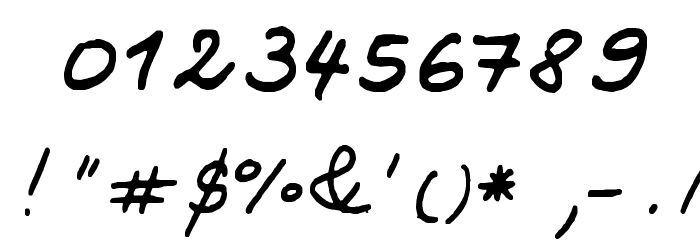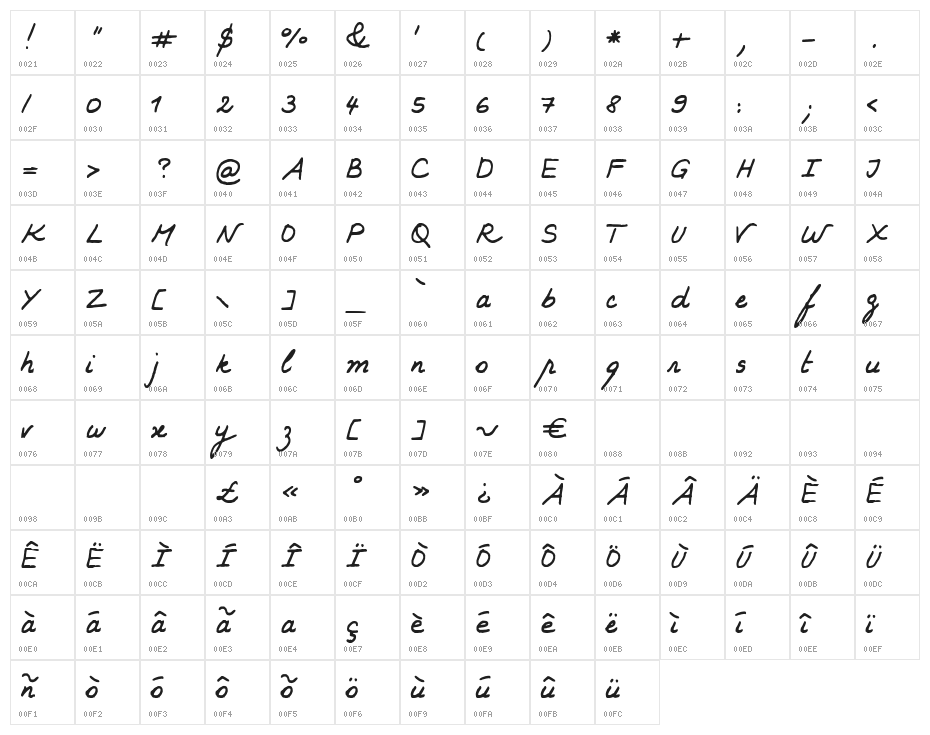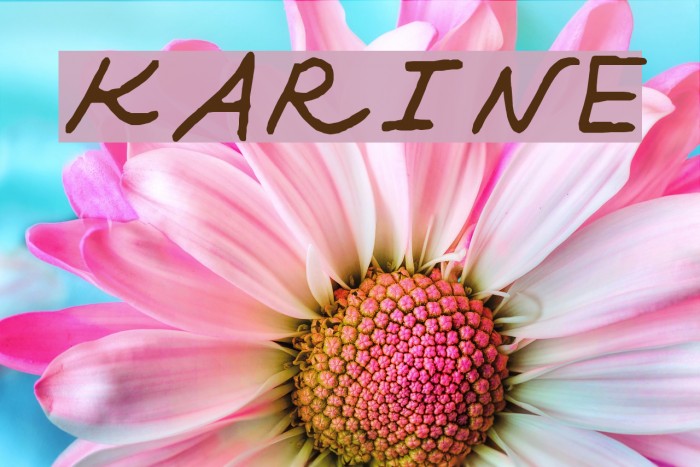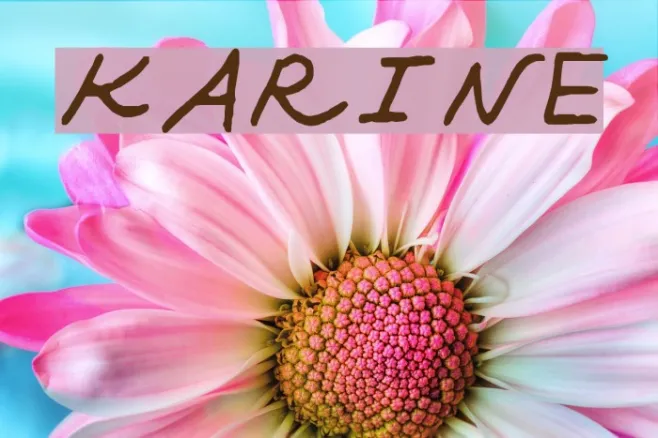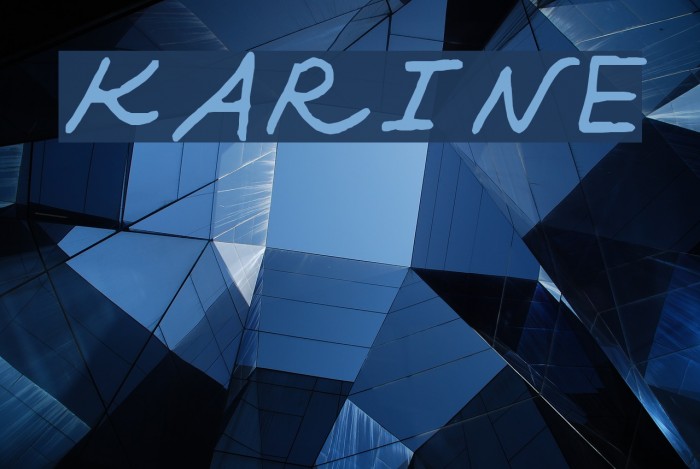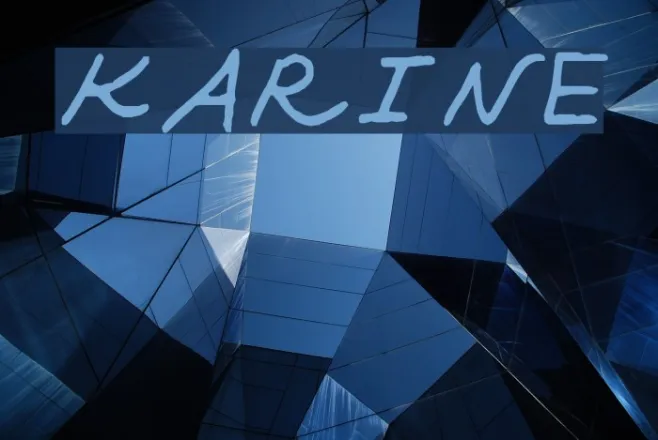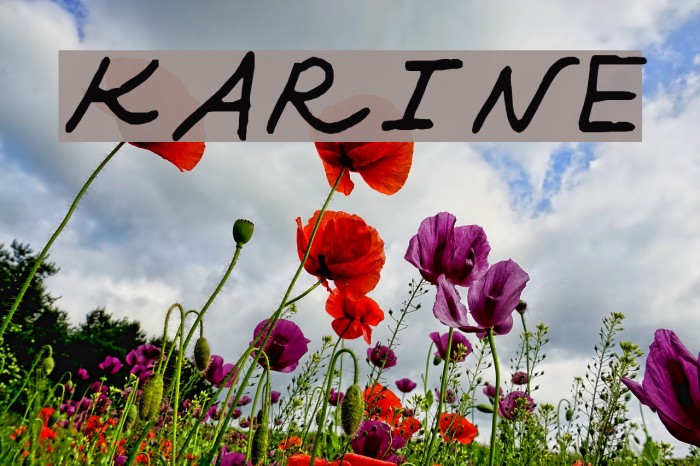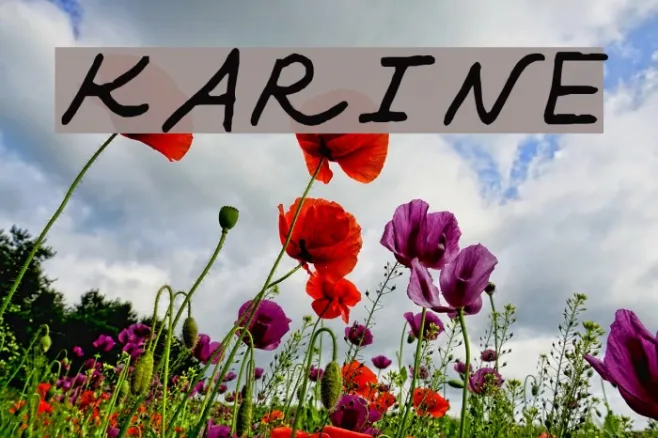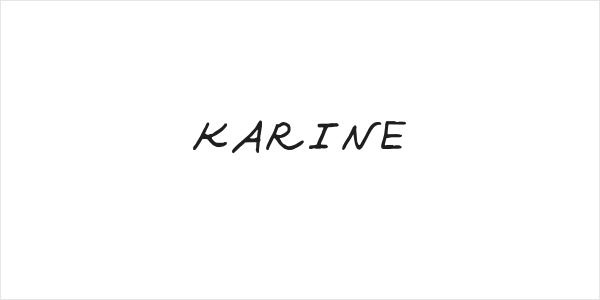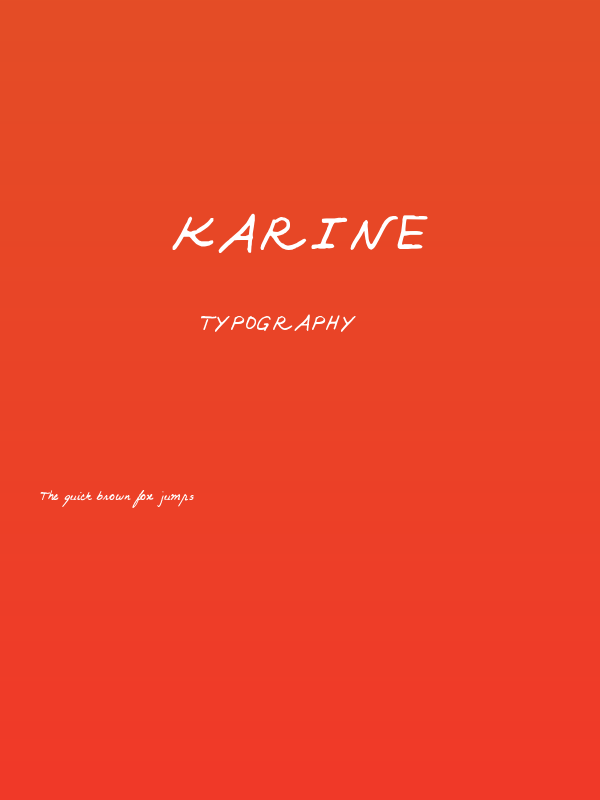
KARINE Font
KARINE Description
This font features a handwritten style with a fluid and natural appearance, reminiscent of cursive writing. The letters are slightly slanted, giving it an informal and personal touch. The uppercase and lowercase letters maintain a consistent flow, with smooth curves and rounded edges. The numerals and special characters are designed to match the overall aesthetic, ensuring a cohesive look. This font is ideal for projects that require a personal or creative touch, such as invitations, greeting cards, or artistic designs.
| Proposed Projects | Ideal for invitations, greeting cards, artistic designs, and personal branding. |